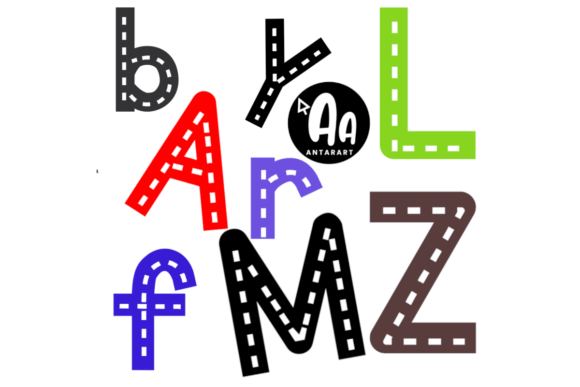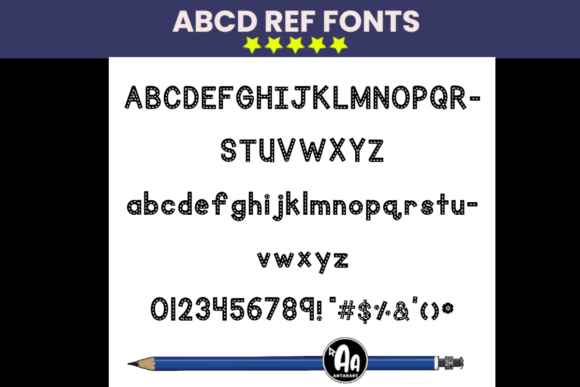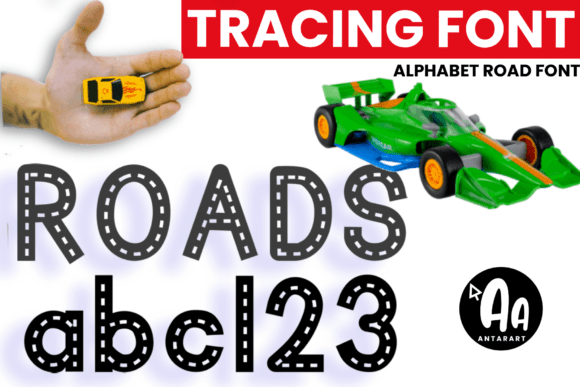
Alphabet Roads Tracing Font: A Fun and Interactive Way to Learn Handwriting
Are you looking for a creative and engaging way to teach preschool and kindergarten students the fundamentals of handwriting? Look no further than the Alphabet Roads Tracing Font, a unique and interactive approach to learning that combines transportation-themed road maps with tracing exercises. This innovative resource is perfect for teachers, homeschoolers, and therapists seeking a hands-on way to develop early writing skills in young children.
What are Road Maps Tracing Mats?
The Alphabet Roads Tracing Font consists of a set of printable mats, each featuring uppercase and lowercase letters, as well as numbers, filled with dotted “road” lines for tracing. These mats are designed to make handwriting practice fun and exciting, while also strengthening fine motor control, pencil grip, letter formation, and number writing skills. Children can practice tracing the characters using their finger, a marker, or even a toy car, making it a versatile and engaging activity.
Benefits for Preschool and Kindergarten Students
The Alphabet Roads Tracing Font offers numerous benefits for young learners, including:
- Improved fine motor control: Tracing the road lines helps children develop the small muscle control needed for writing.
- Enhanced pencil grip: Practicing with a marker or pencil helps children develop a proper grip, essential for comfortable and efficient writing.
- Letter formation and number writing: The tracing exercises help children learn the correct formation of uppercase and lowercase letters, as well as numbers.
- Increased hand-eye coordination: Using a toy car to trace the roads helps children develop hand-eye coordination and visual tracking skills.
How to Use the Alphabet Roads Tracing Font
The Alphabet Roads Tracing Font is incredibly versatile and can be used in various settings, including:
- Center activities: Set up a handwriting center with the tracing mats and let children rotate through and practice their handwriting.
- Morning work: Use the tracing mats as a morning activity to get children started on their day and ready to learn.
- Fine motor stations: Incorporate the tracing mats into fine motor stations, providing children with a fun and engaging way to practice their handwriting.
- Reusable dry-erase mats: Laminate the pages and use them as reusable dry-erase mats, perfect for a quick and easy clean-up.
Why Choose the Alphabet Roads Tracing Font?
The Alphabet Roads Tracing Font stands out from other handwriting resources due to its unique and engaging approach. Here are just a few reasons why:
- Transportation-themed: The road map design makes handwriting practice fun and exciting, with a theme that children love.
- Easy-to-print and visually bold: The mats are easy to print and feature a bold, visually appealing design that will capture children’s attention.
- Classroom-ready: The Alphabet Roads Tracing Font is ready to use in the classroom, with no preparation required.
The Alphabet Roads Tracing Font is an innovative and engaging resource for teaching preschool and kindergarten students the fundamentals of handwriting. With its unique road map design, versatile uses, and numerous benefits, this resource is perfect for teachers, homeschoolers, and therapists seeking a hands-on approach to early writing skills. Make handwriting practice fun and exciting with the Alphabet Roads Tracing Font – order your printable set today!